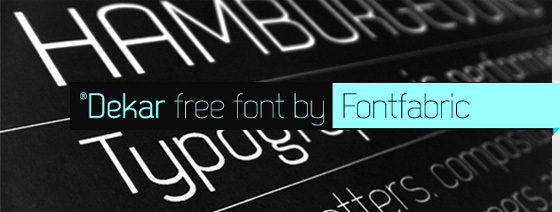
Dekar free font
by Fontfabric Type Foundry
Dekar free font is applicable for any type of graphic design ? web, print, motion graphics etc and perfect for t-shirts and other items like posters, logos.